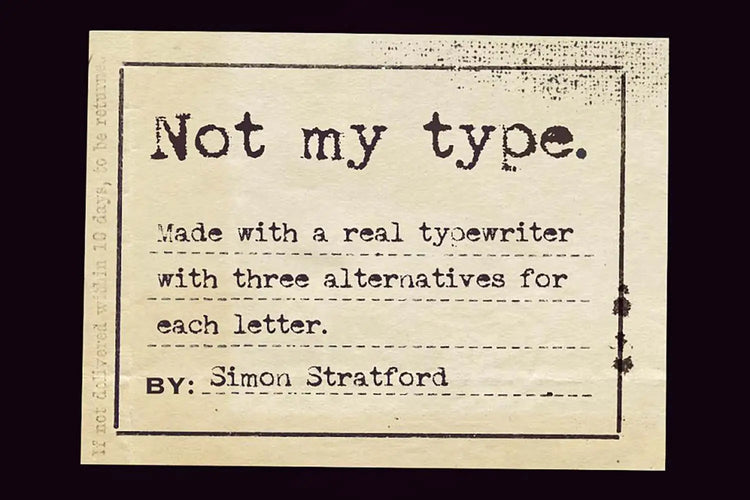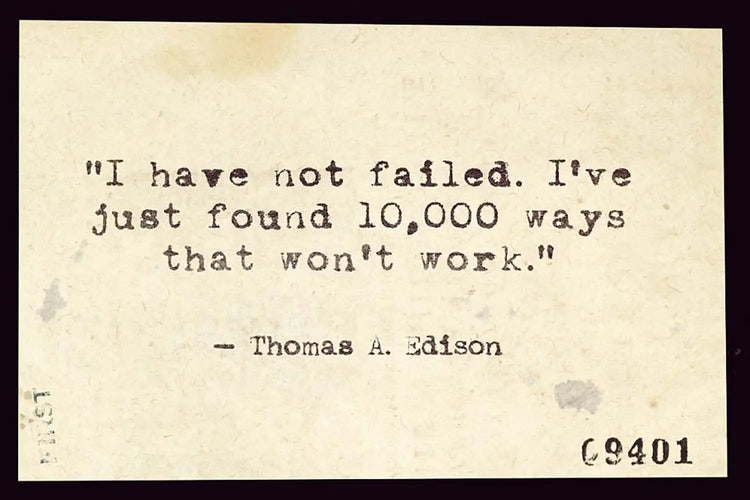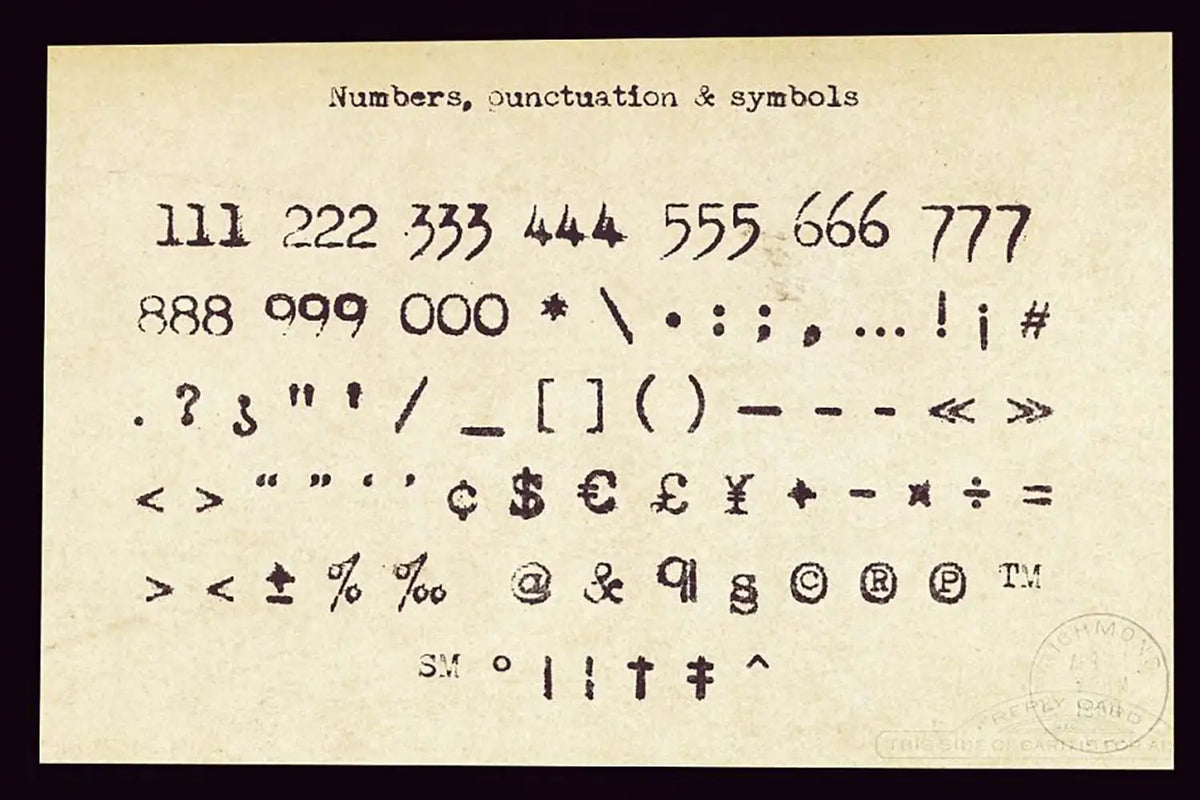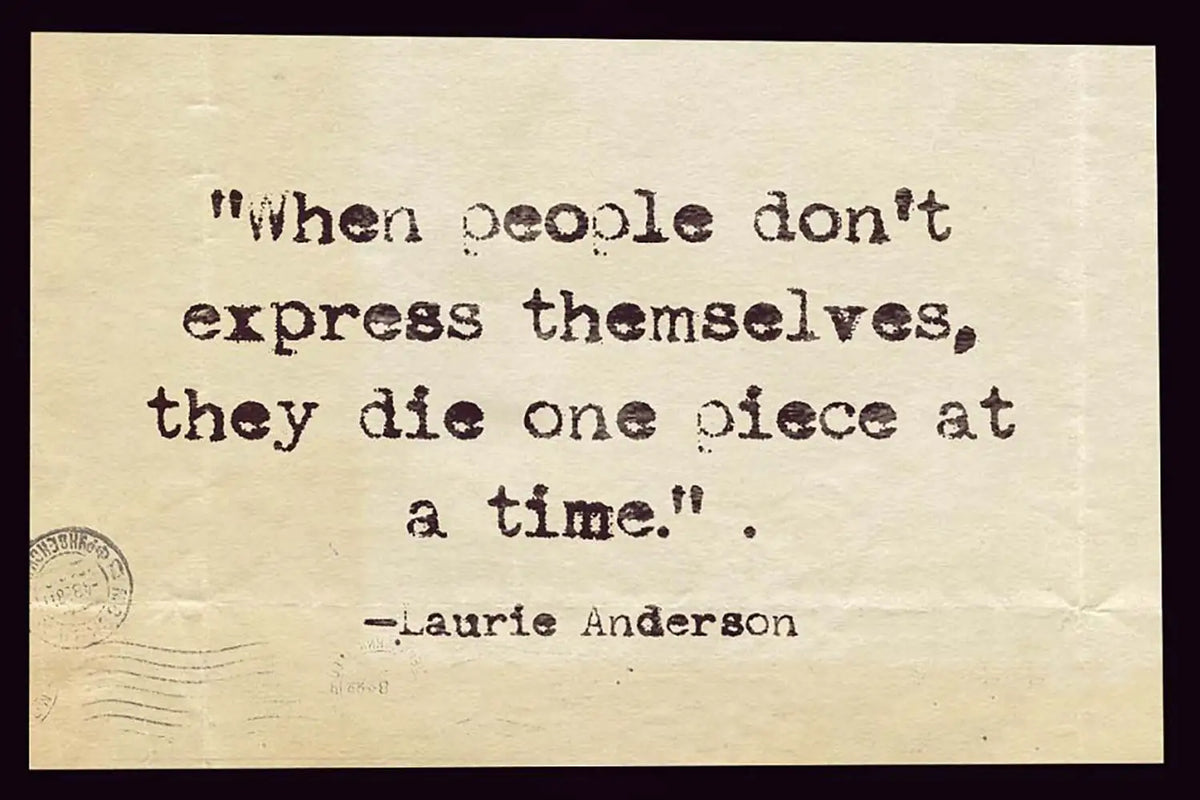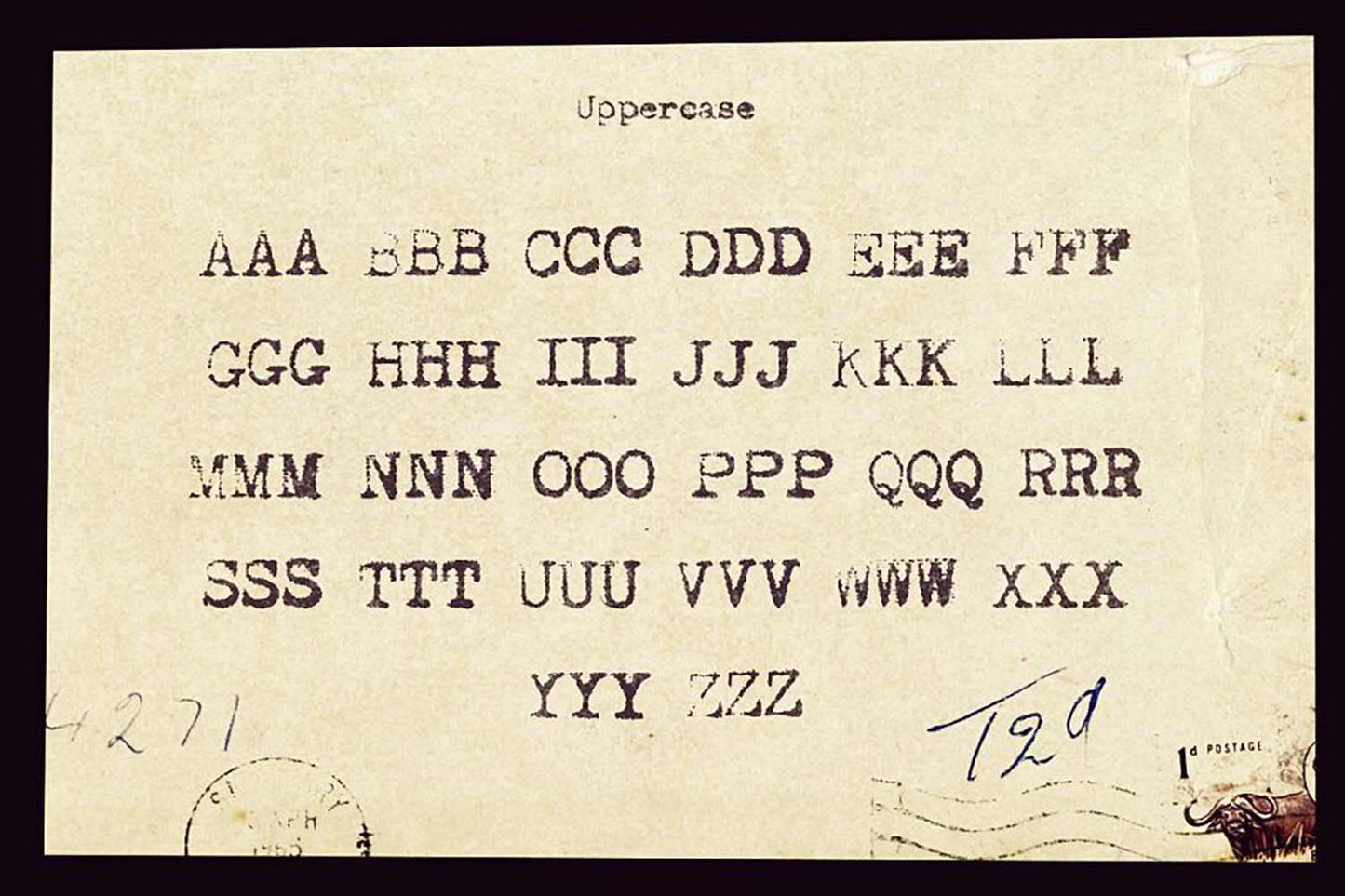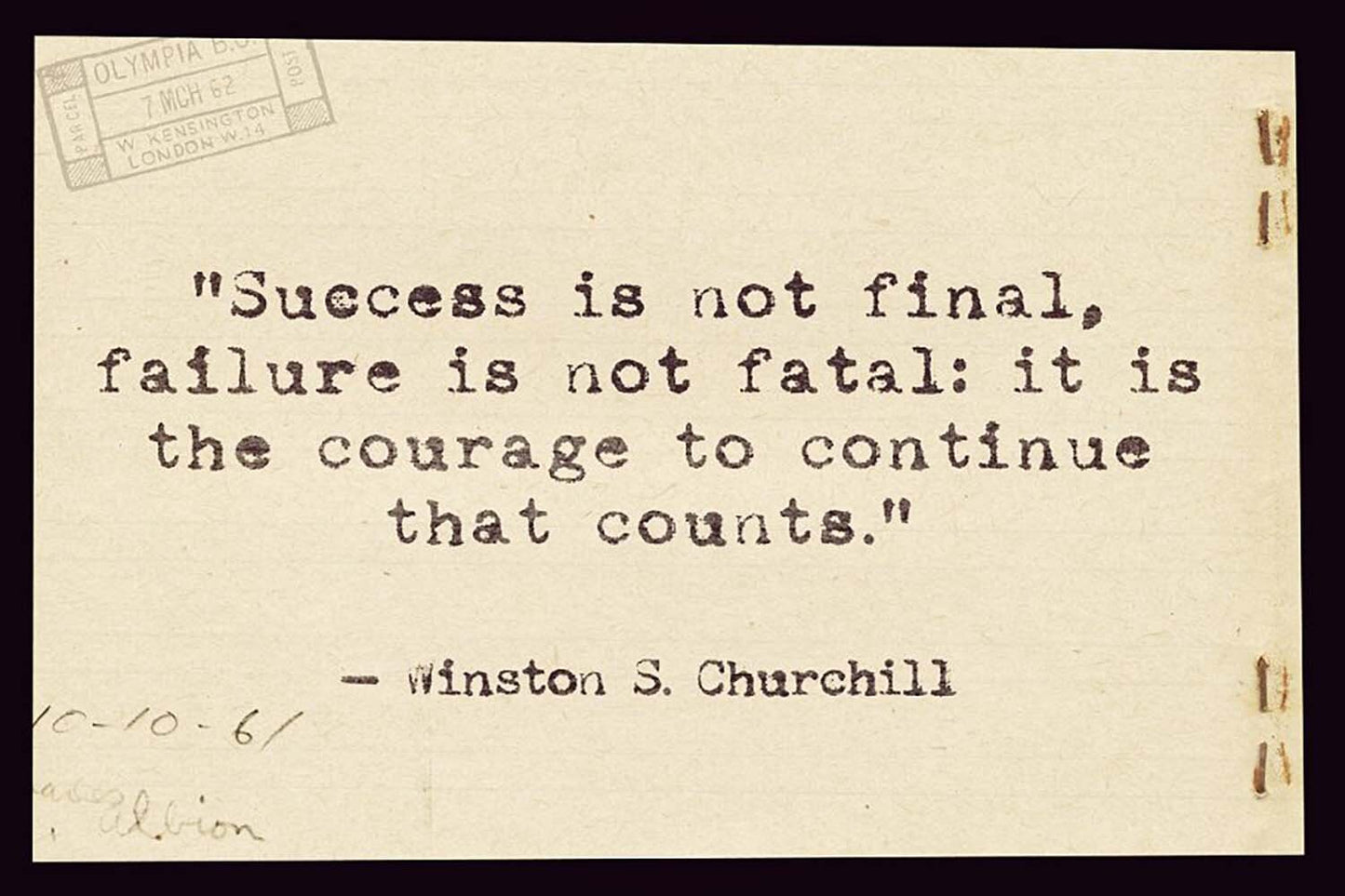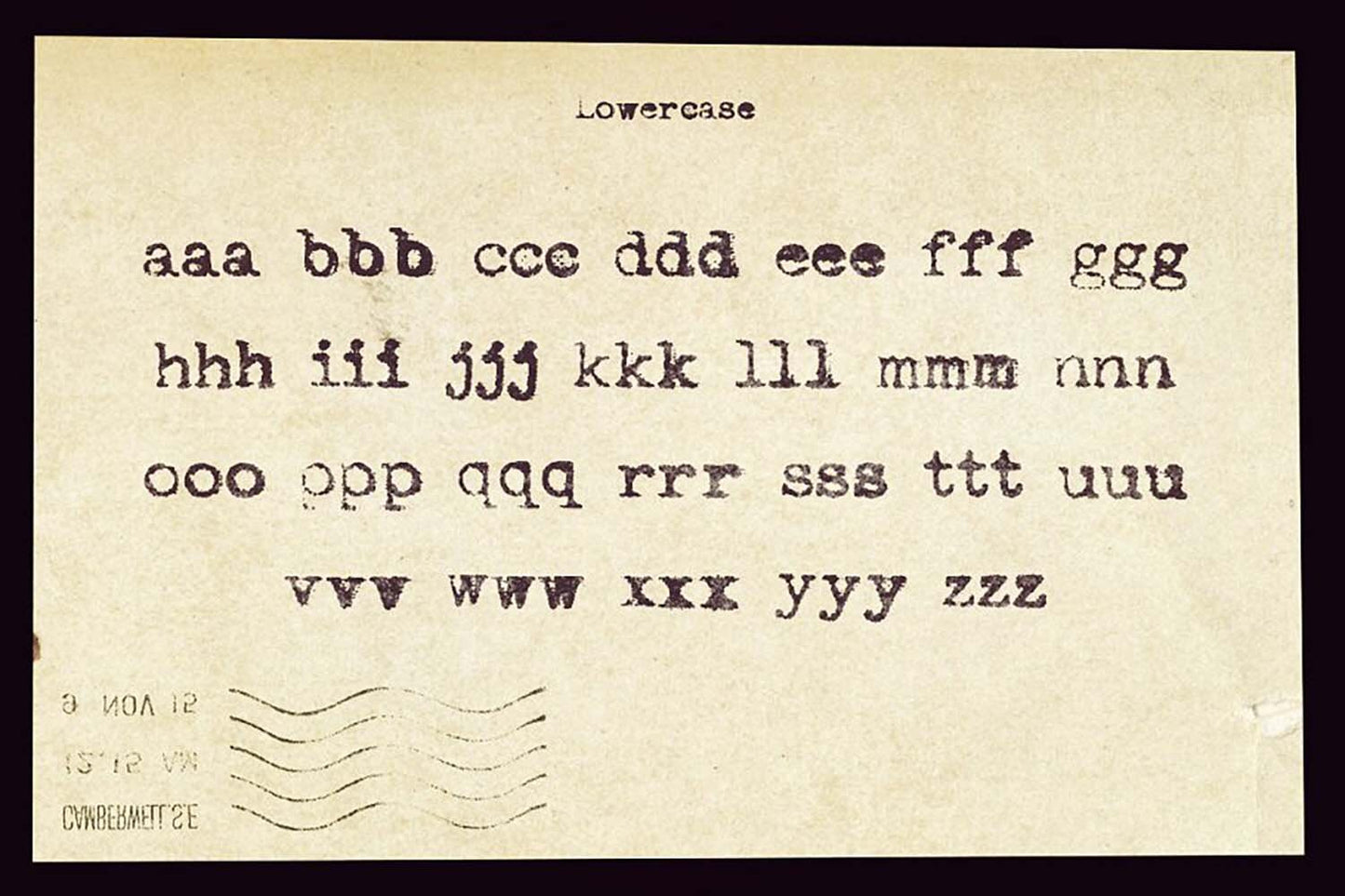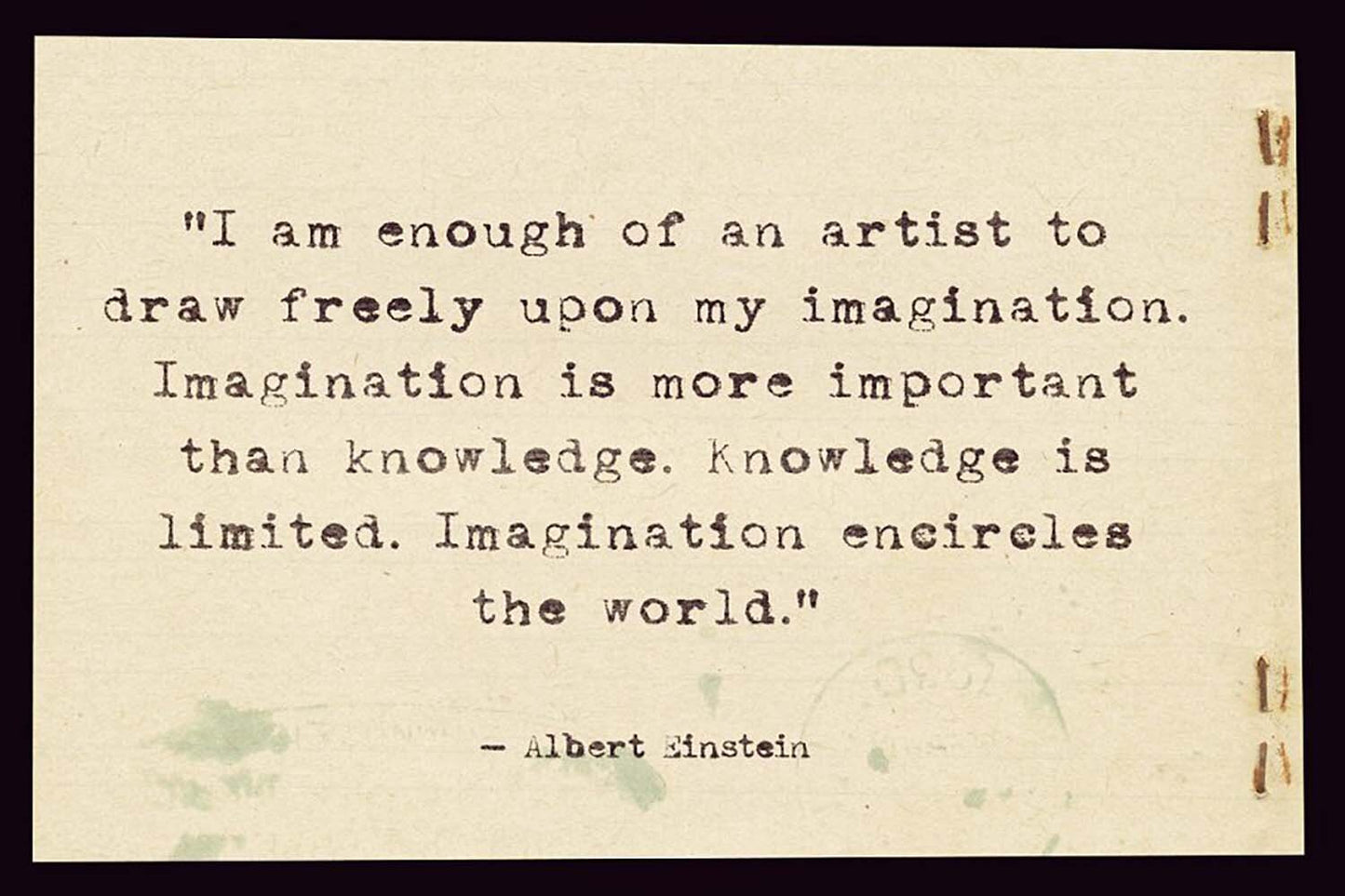
Not my type — Retro Typewriter Font
About Not my type
Not My Type font is your go-to choice when you want to infuse that delightful typewriter charm into your designs.
Think about it—old typewriters bring that warm, nostalgic feeling, transporting us to a time when every keystroke was a deliberate act of creation.
The clunky keys, the satisfying click-clack symphony, and the manual carriage return—it takes me right back.
Not My Type font isn't just any typewriter font. I didn't just grab it off the internet; I found a real typewriter at a car boot sale (that's the quirkiest flea market find ever, right?).
Then, I put in the hard yards, converting it into a full-fledged typeface. So, you can enjoy that retro, slightly grungy vibe without dealing with messy ink ribbons. Happy typing!
If Not My Type were a celebrity
If Not My Type font were a celebrity, it would be Charlie Chaplin. Just like Chaplin's silent films, this font takes you on a charming journey to the past, all while staying relevant and enduring in its appeal.